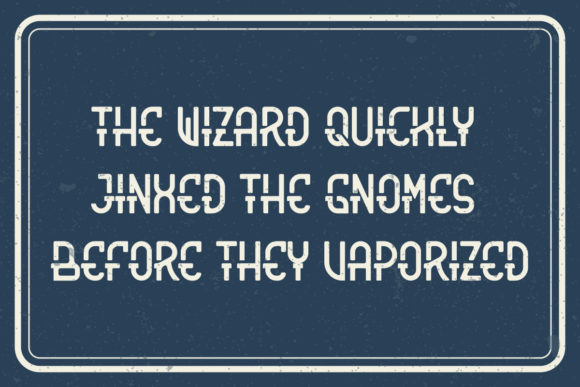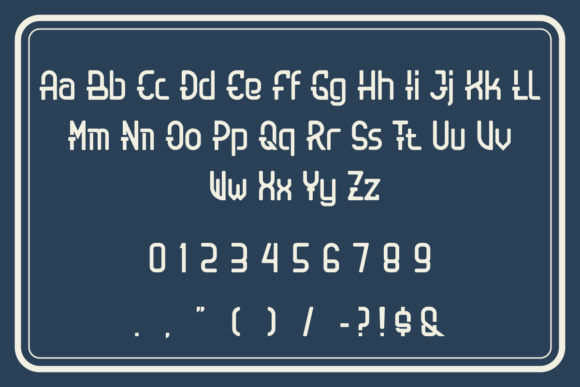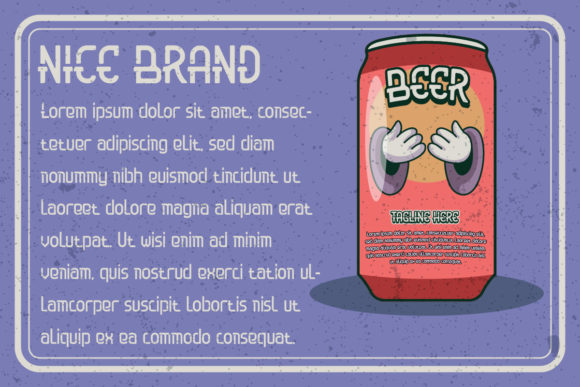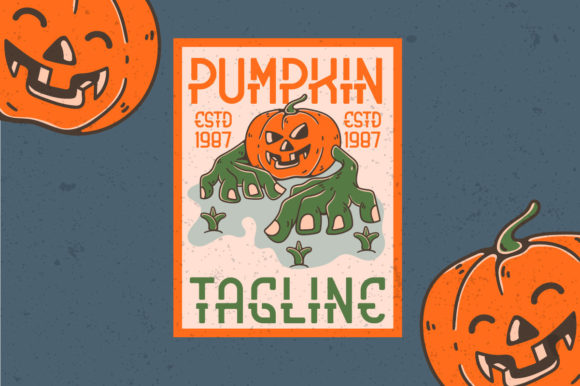
Introduction to Garistengah Font
Do you remember that moment when you’re brainstorming ideas for a new project and you finally stumble upon the perfect font? It’s like the missing piece of the puzzle falls into place, and you can already envision the final result. For designers, this feeling is all too familiar, and it’s exactly what we’re here to talk about – the Garistengah Font.
This cool, rough textured and classic display font is a game-changer for any creative project. Whether you’re working on a card, branding, labels, or anything in between, the Garistengah Font is sure to elevate your design to the next level. With its unique texture and high-quality design, it’s no wonder why designers are raving about this fantastic font.
Key Features of Garistengah Font
- High-quality design resource ideal for creative projects, including logos, branding, and digital art.
- Unique characteristics include a transparent background and intricate details, allowing for seamless integration into various design elements.
- Designed to be highly legible, with clear typography and balanced proportions, making it suitable for a range of creative applications.
Honest Review: Garistengah Font
As a designer, I’m always on the lookout for high-quality design resources to enhance my creative projects. Recently, I came across the Garistengah Font, and I was eager to give it a try.
First impressions: the font is free to download, which is a huge plus for designers on a budget. The transparent background makes it easy to overlay on any image or design element. The font itself is quite elegant, with a unique blend of modern and vintage elements.
- ⚠️ Limited character set, which may not be suitable for extended texts
- ⚠️ Not ideal for use as a primary font due to its ornate design
Overall, I think the Garistengah Font is a solid addition to any designer’s toolkit. While it may not be perfect for every project, it’s a great resource to have in your back pocket for those creative projects that require a unique touch.
The Garistengah Font is a versatile and stylish design resource that can elevate your creative project with its unique aesthetic. With a transparent background, this font can be easily incorporated into various design applications.
Getting the Most Out of Garistengah Font
To maximize the impact of the Garistengah Font, use it in conjunction with high-quality images and a clean design aesthetic. Experiment with different font sizes and colors to create a visually appealing effect.
The Garistengah Font is particularly well-suited for creative projects, such as:
- Brand identity and logo design
- Social media graphics and advertising
- Wedding invitations and event design